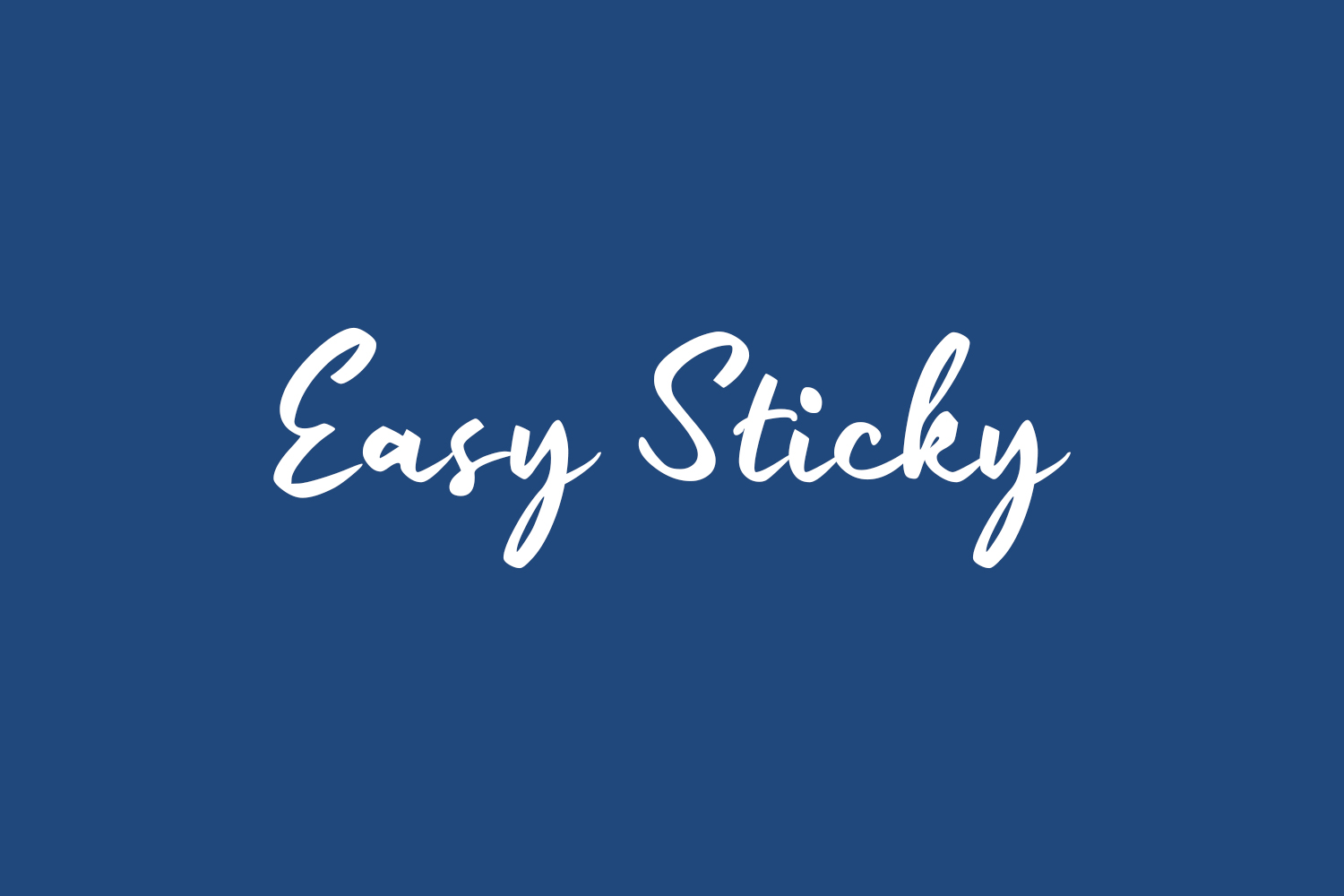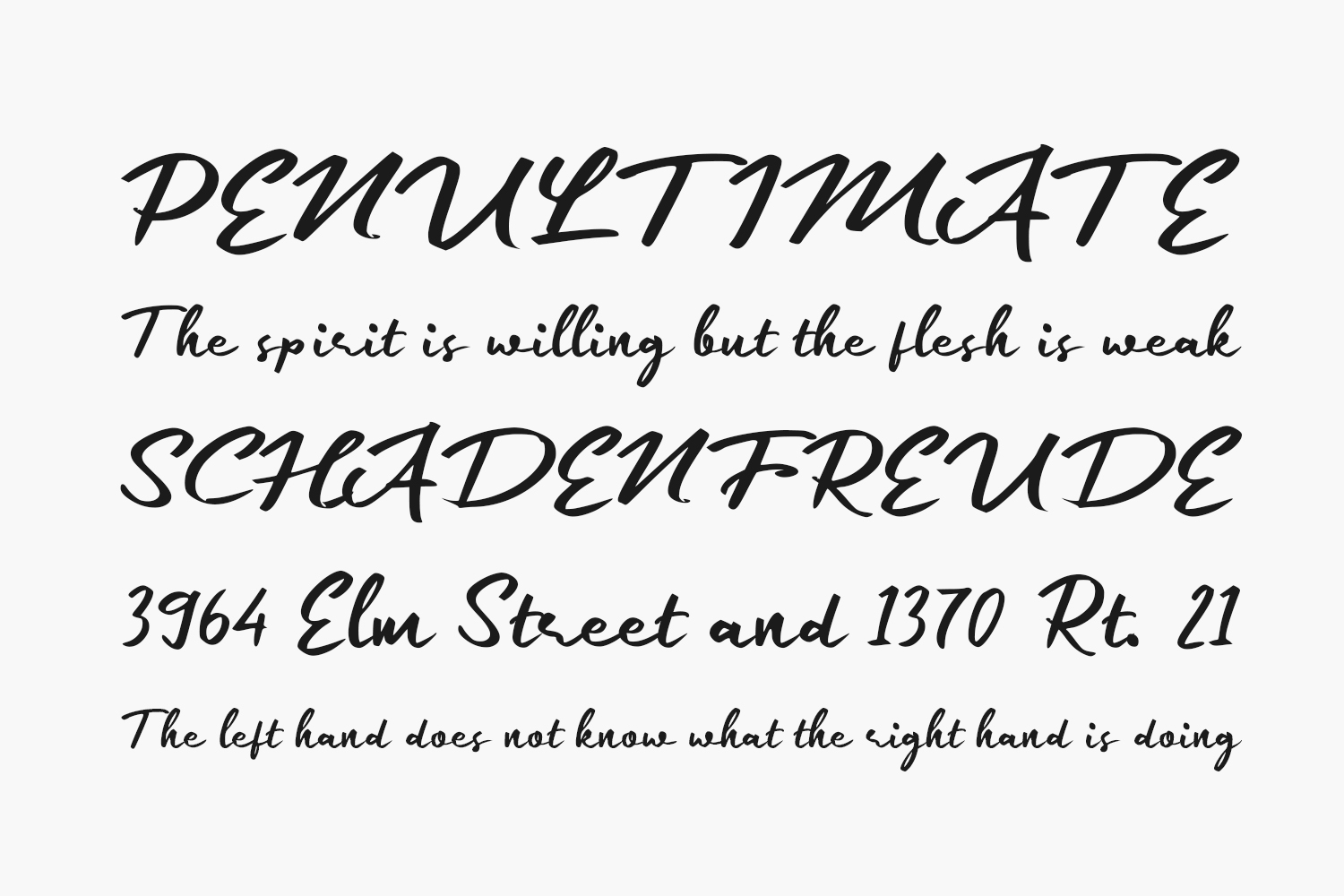
Introducing Easy Sticky Free Font, the handwritten font that brings a playful and spontaneous touch to your designs. With its bold, yet legible strokes and whimsical curves, this font is perfect for adding a touch of personality and fun to any project.
But what sets Easy Sticky apart is its unique feature – it’s completely sticky-free! Say goodbye to the frustration of trying to peel off a sticky note that just won’t budge. This font captures the essence of the sticky note aesthetic without the mess.